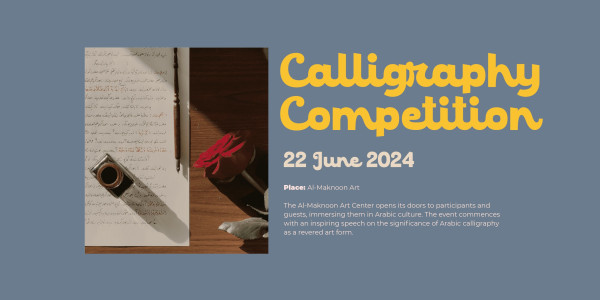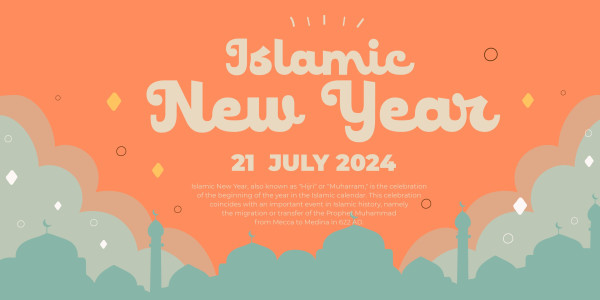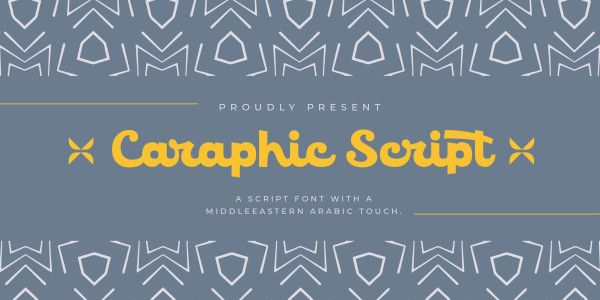
Caraphic Script Font
Caraphic Script Font, marries the crisp elegance of script typefaces with the beauty of Middle Eastern design.
Its unique character emerges from its seamless support for both Latin and Arabic scripts, bridging worlds and cultures in a single, harmonious typeface.